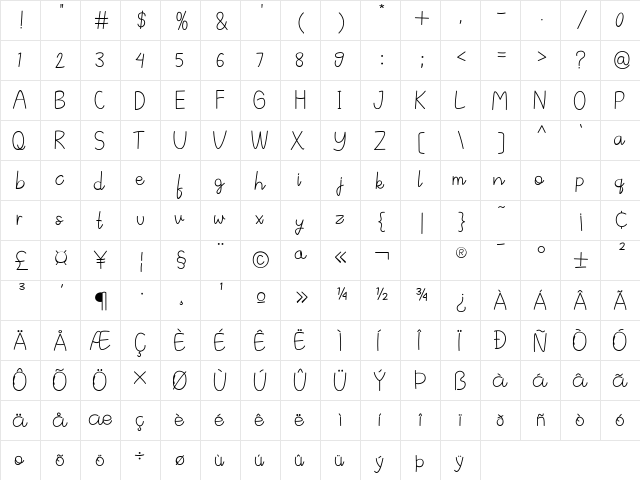
Vinally Regular
Design Context for Vinally Typeface
Vinally takes a measured approach to typography — its balanced proportions and neutral character make it a reliable workhorse for both digital and print work.